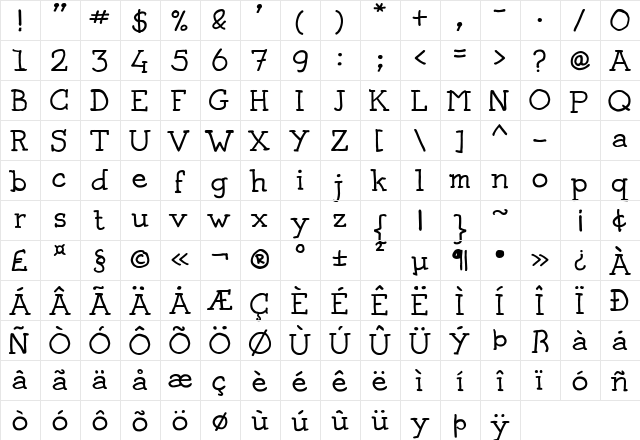
Josschrift Serif Regular
| Foundry | Jos Elsendoorn |
| Designer | Jos Elsendoorn |
Design Context for Josschrift Serif Typeface
Josschrift Serif brings classic typographic sensibility to the table — its serifs and measured letterforms reflect centuries of print heritage.